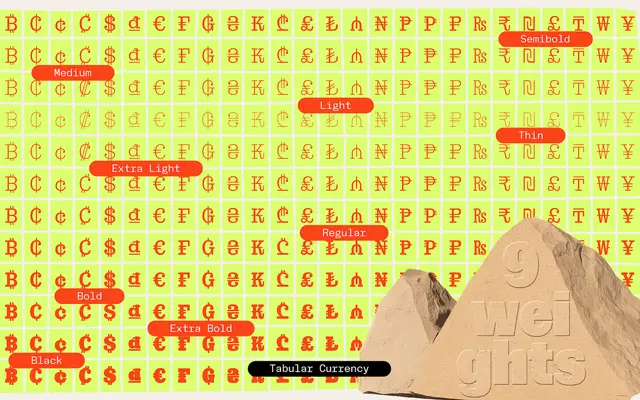
NaN Rage
NaN · Hugues Gentile, Fanny Hamelin, Fadhl Haqq, Léon Hugues, Jean-Baptiste Morizot, Luke Prowse, Florian Runge, Jolana Sýkorová · 2024
NaN Rage specimen from NaN
Seven matched font families spanning slabs, sans-serifs, a rounded cut, a script and an experimental variant, built as a single coherent type system with shared proportions and language support across 305 Latin-based languages.
Designed by the NaN team and released in 2024, the Rage Typographic Universe draws from 19th-century titling wood-types and early computer fonts to produce seven distinct but interchangeable families. Each ranges from Extra-Condensed to Standard in width and Thin to Black in weight, giving 36 styles per subfamily and 252 styles across the full system. The shared proportions and contrast mean any combination of Beau, Slab, Sans, Soft, Poly, Quik and Zipp can be mixed for editorial, branding or motion work without visual friction.
A sprawling type system spanning slab-serifs, early sans-serifs, a rounded variant, a script and an experimental cut, drawing on 19th-century wood-type and early computing aesthetics. No single category applies; display is the closest given the headline-first orientation and the sheer expressive range across seven distinct subfamilies.